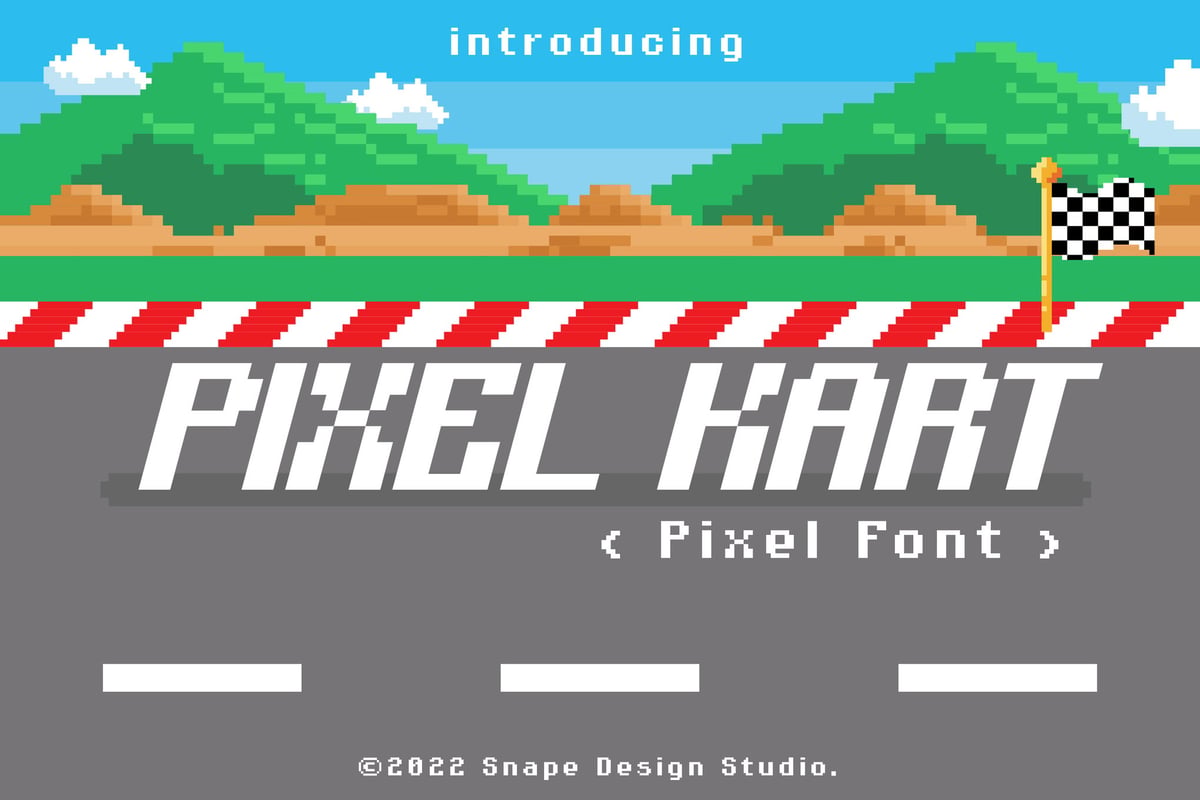
Pixel Kart - Pixel Font
Rev up your retro designs with Pixel Kart, the ultimate pixelated racing-inspired typeface! This authentic pixel font captures the nostalgic essence of classic arcade racing games, making it the perfect choice for retro game design themes. The blocky, 8-bit aesthetic brings instant vintage gaming vibes to any project. Pixel Kart excels across multiple design applications including movies, documentaries, films, logos, posters, game interfaces, book covers, headlines, titles, and countless other c...